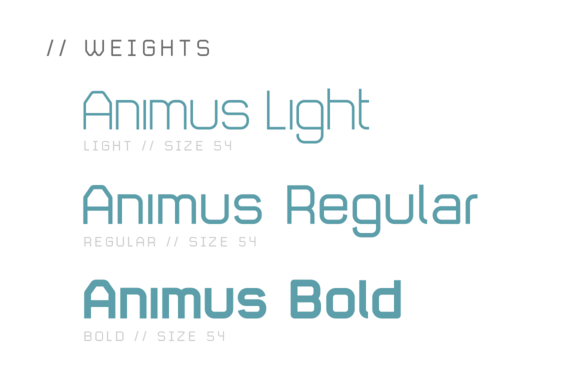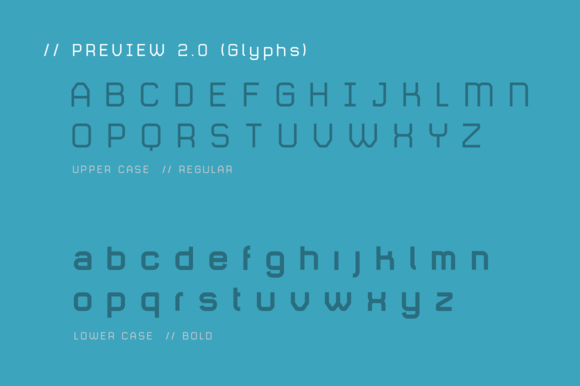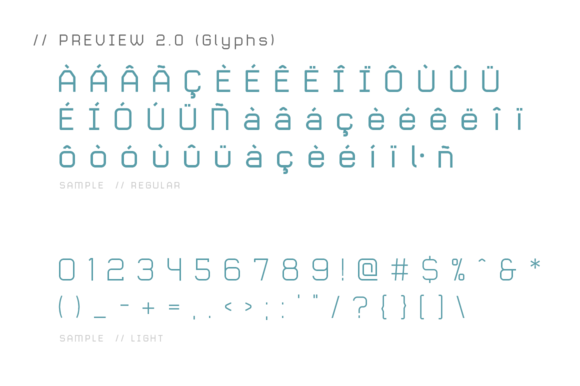
I still remember the frustration of working on a project, hours spent crafting the perfect layout, only to be held back by one thing: the font. It was a common problem, but one that seemed insurmountable at the time. My client wanted a sleek, modern look that would appeal to their tech-savvy audience, but everything I tried seemed to fall flat. That was until I stumbled upon Animus Font. ✨
First Impressions: A Review of Animus Font
As a designer, I’m always on the lookout for fonts that can elevate my work. Animus Font has quickly become a go-to in my toolkit, and for good reason. Here’s what I love:
• ✅ Versatility: Animus is a sans-serif typeface that works beautifully as both body text and a display font.
• ✅ Clean lines: The geometric inspiration is evident in the font’s sleek, minimalist design.
• ✅ Weight options: With three weights to choose from (Regular, Light, and Bold), I can use Animus in a variety of contexts.
• ⚠️ Limited character set: While Animus covers the basics, it’s not a font for complex typography or extensive language support.
• 🤔 Some glyphs feel a bit cramped: At smaller sizes, a few of the glyphs can feel a bit tight, so be sure to adjust your tracking accordingly.
Exploring Alternatives: Similar Fonts to Animus
Animus Font is certainly unique, but it’s not the only game in town. If you’re looking for something similar, consider these alternatives:
• Montserrat: A geometric sans-serif with a similar urban feel. Use it for display text or headings where you want to make a statement.
• Inter: A modern sans-serif designed specifically for digital interfaces. It’s perfect for body text and small sizes.
• SF Pro: A clean, minimalist font from Apple. Use it for interface design or marketing materials where you want a professional look.
• Open Sans: A popular sans-serif with a friendly feel. It’s great for body text and long-form content.
The Story Behind Animus Font
According to its creators, Animus Font was inspired by the intersection of technology and minimalist design. The goal was to craft a font that was both clean and versatile, capable of adapting to a wide range of design needs. While the exact origins of the font are unclear, it’s evident that the designers were on a mission to create something unique and practical.
What is Animus Font? Animus Font is a sleek sans-serif typeface, available in three weights (Regular, Light, and Bold).
What kind of projects is Animus suitable for? Animus is well-suited for a variety of design needs, including digital interfaces, marketing materials, and print design.